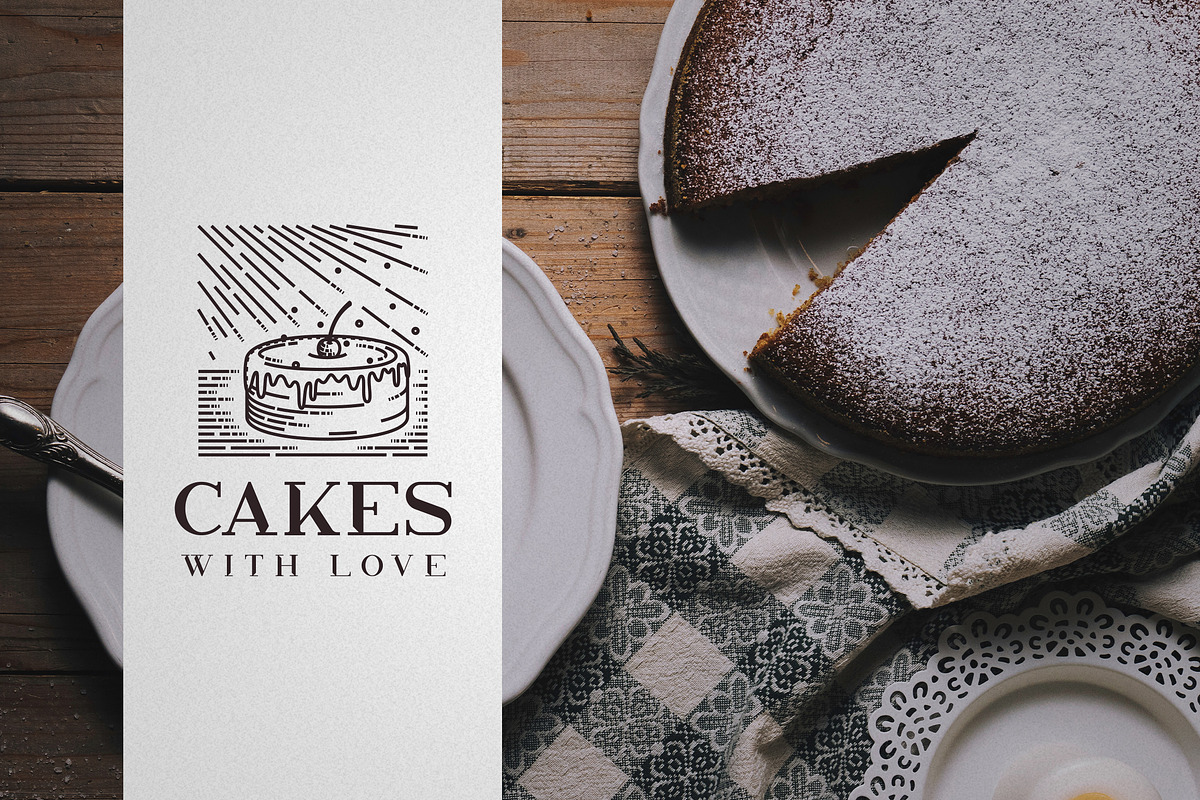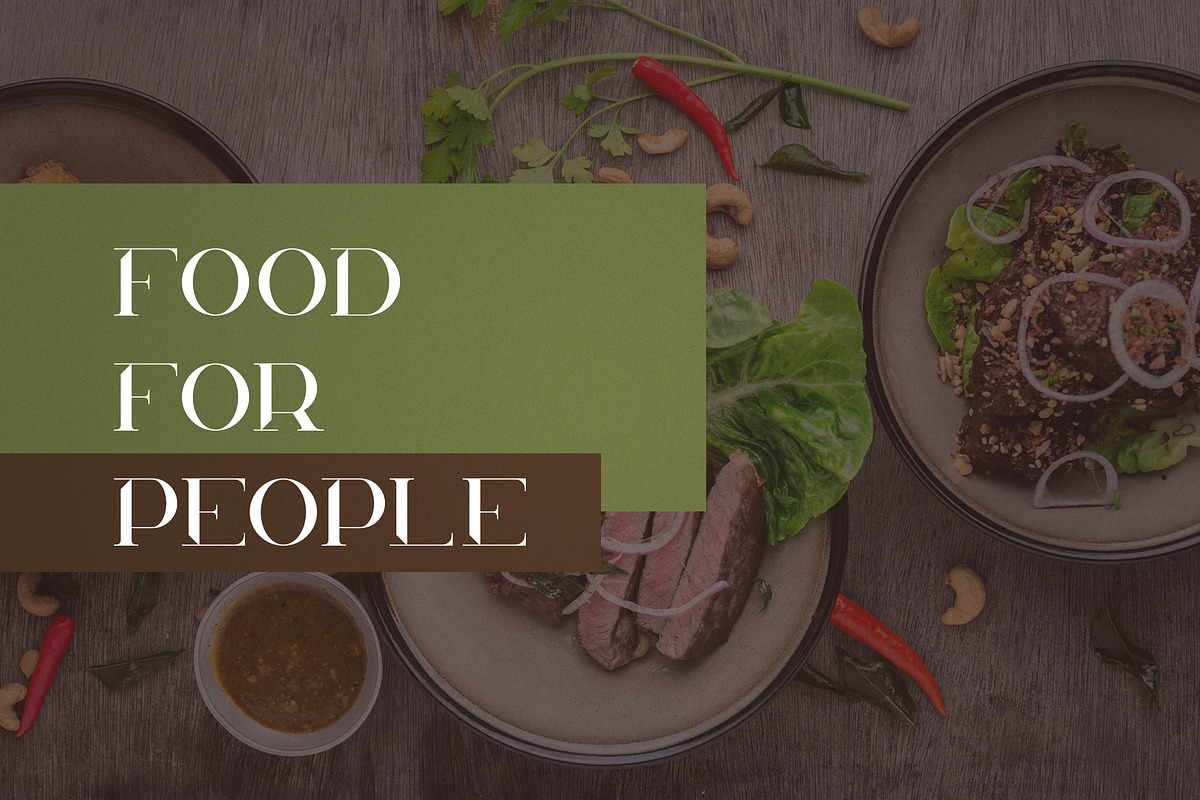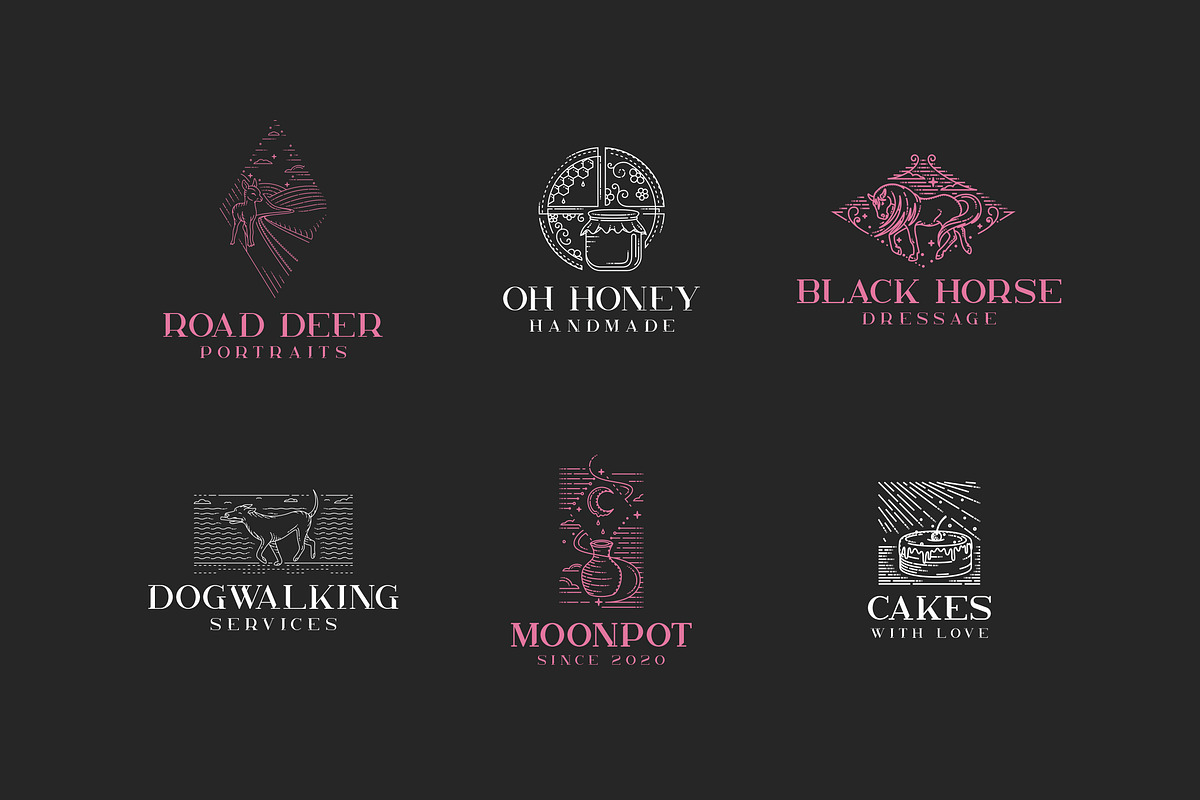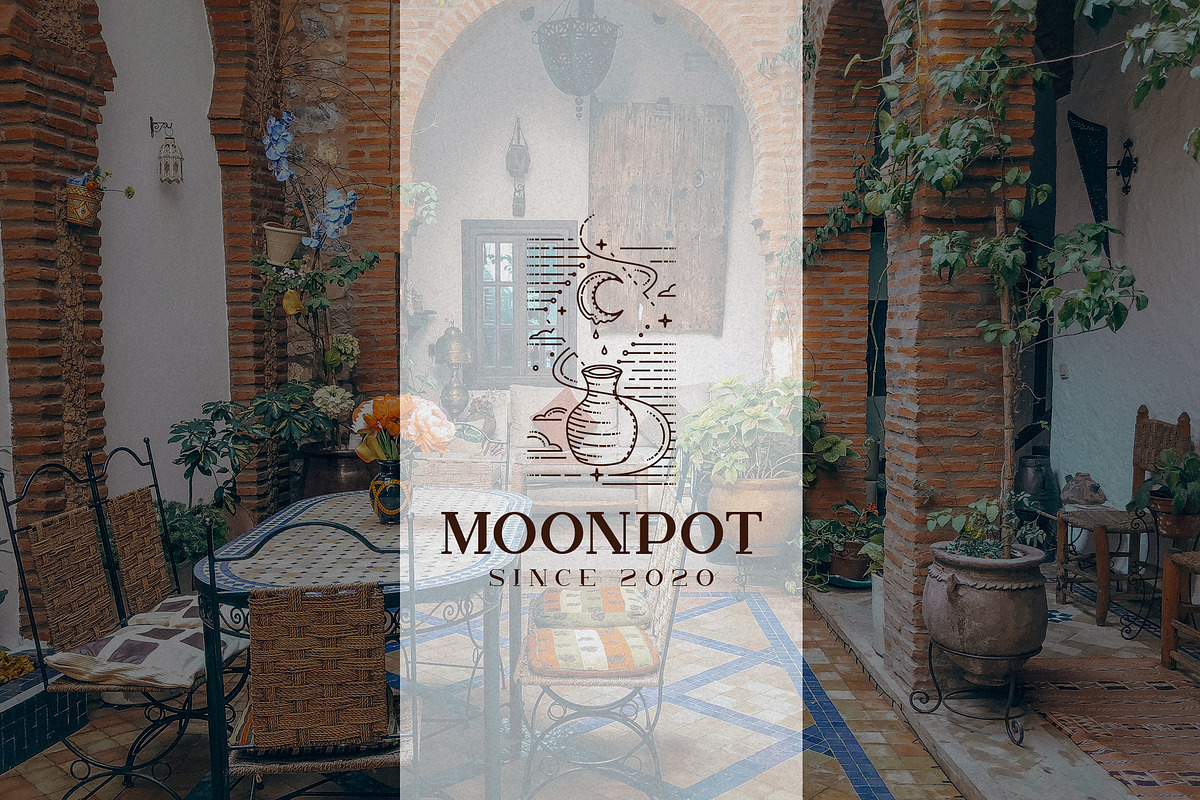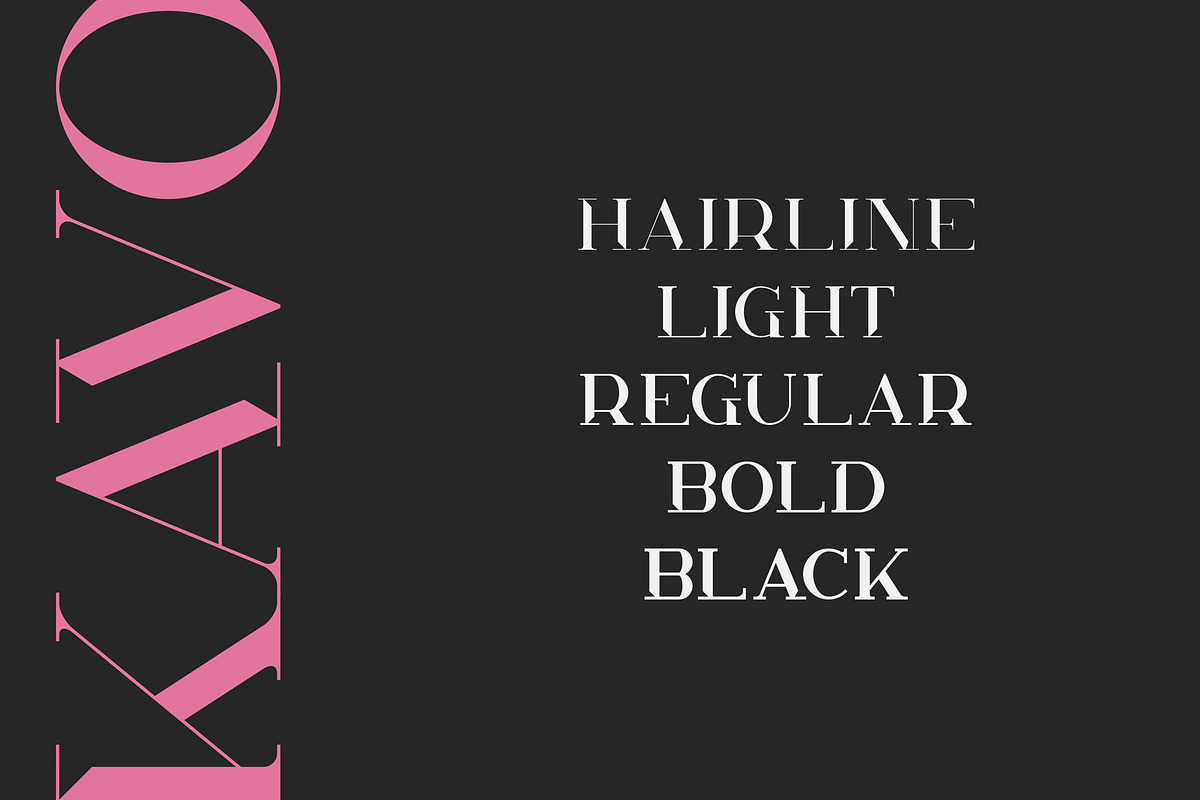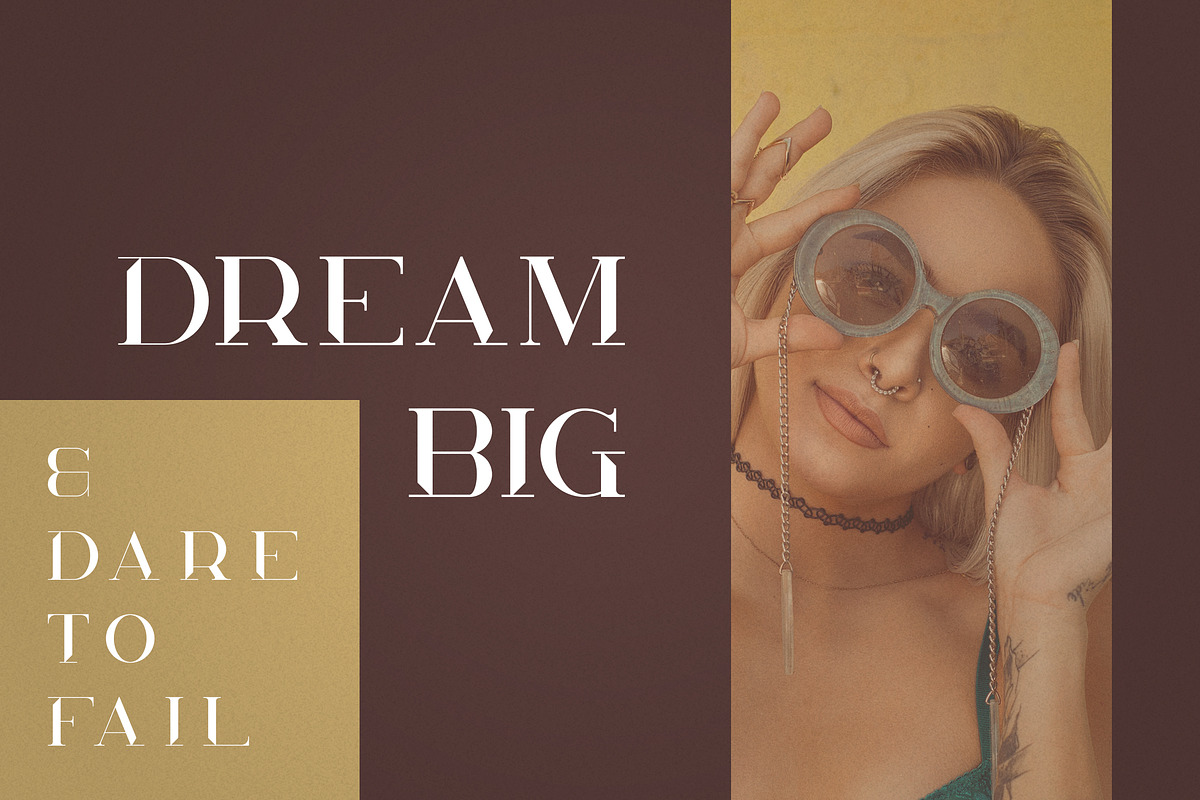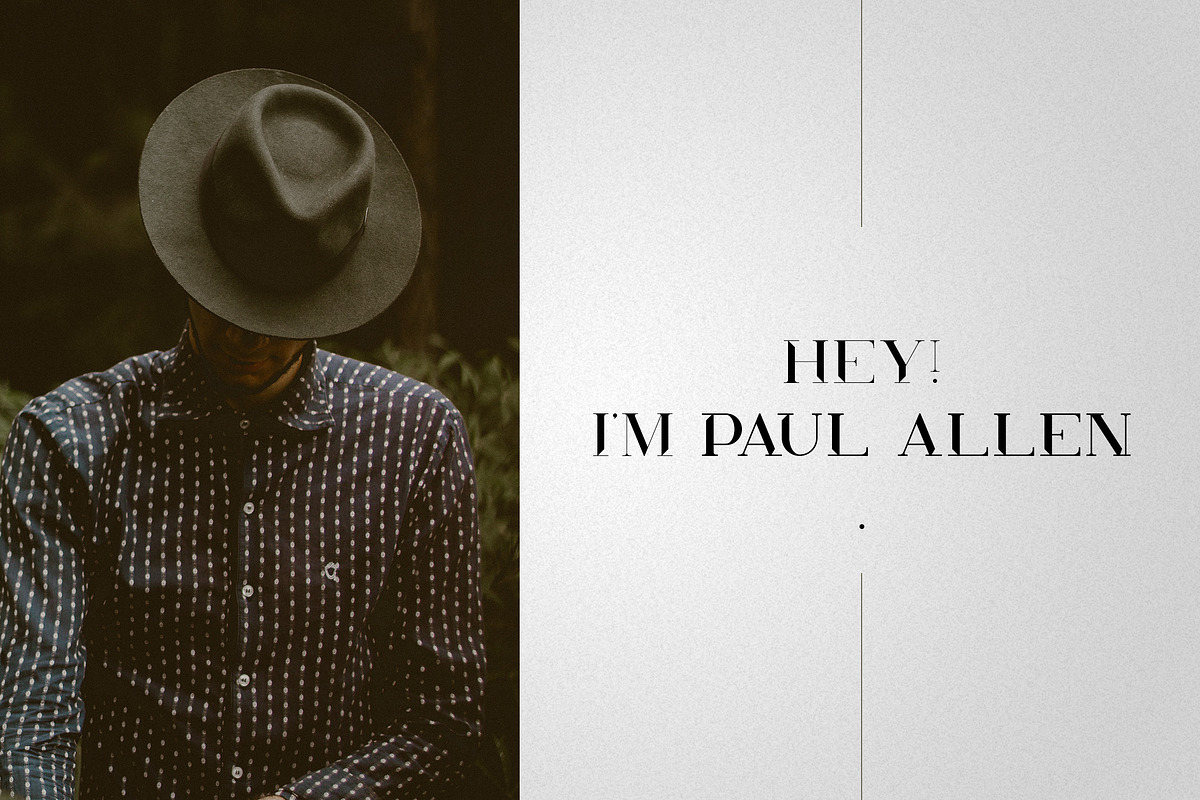
Kavo Styled Serif Typeface | 5 fonts
Introducing Kavo Styled Serif typeface - 5 weights + 6 Logo Templates
Kavo styled serif is clean, modern typeface with 5 weights, 6 awesome vector designs, 6 logo templates and multilingual support. It's a very versatile font that works great in large and small sizes.
Kavo styled serif is perfect for branding projects, home-ware designs, product packaging, magazine headers - or simply as a stylish text overlay to any background image.
Uppercase, numeral, punctuation & Symbol